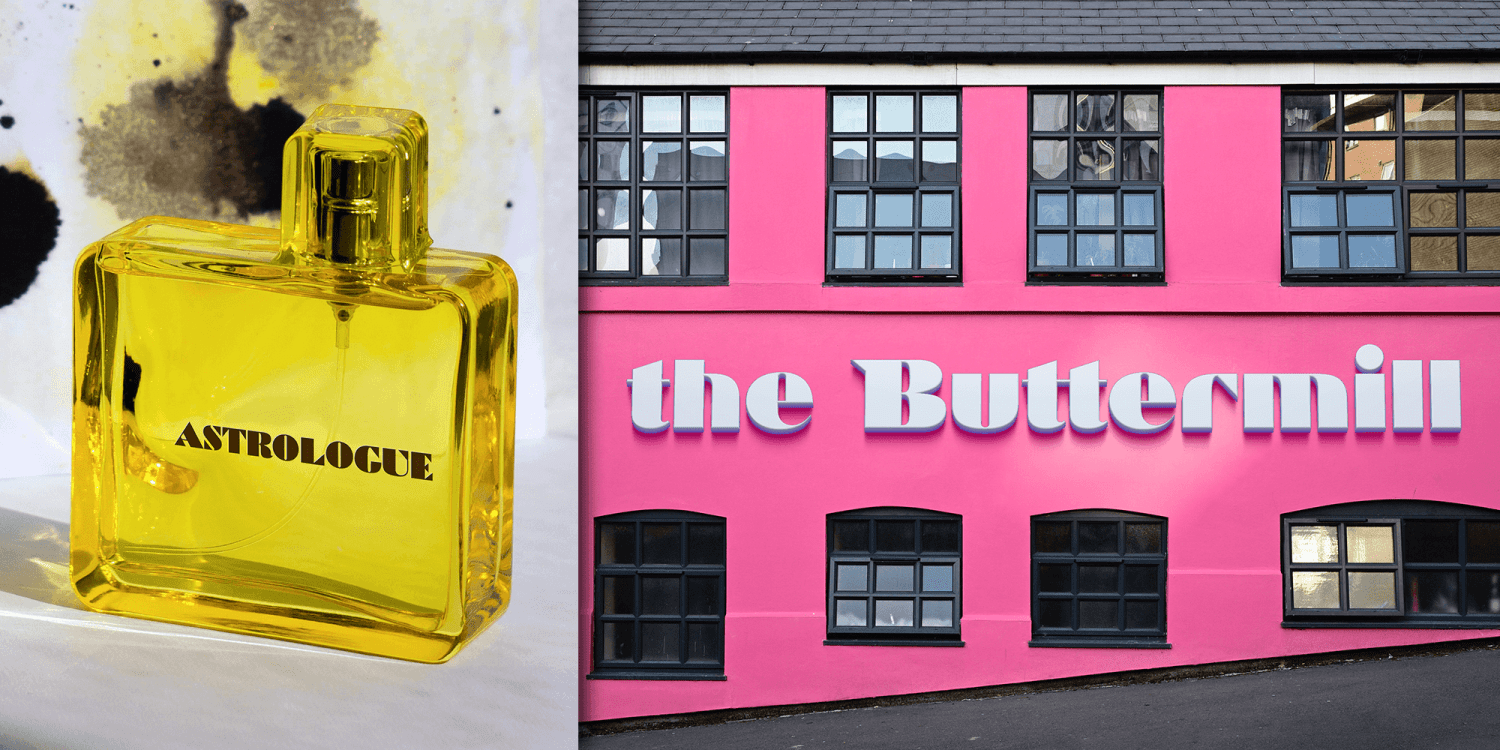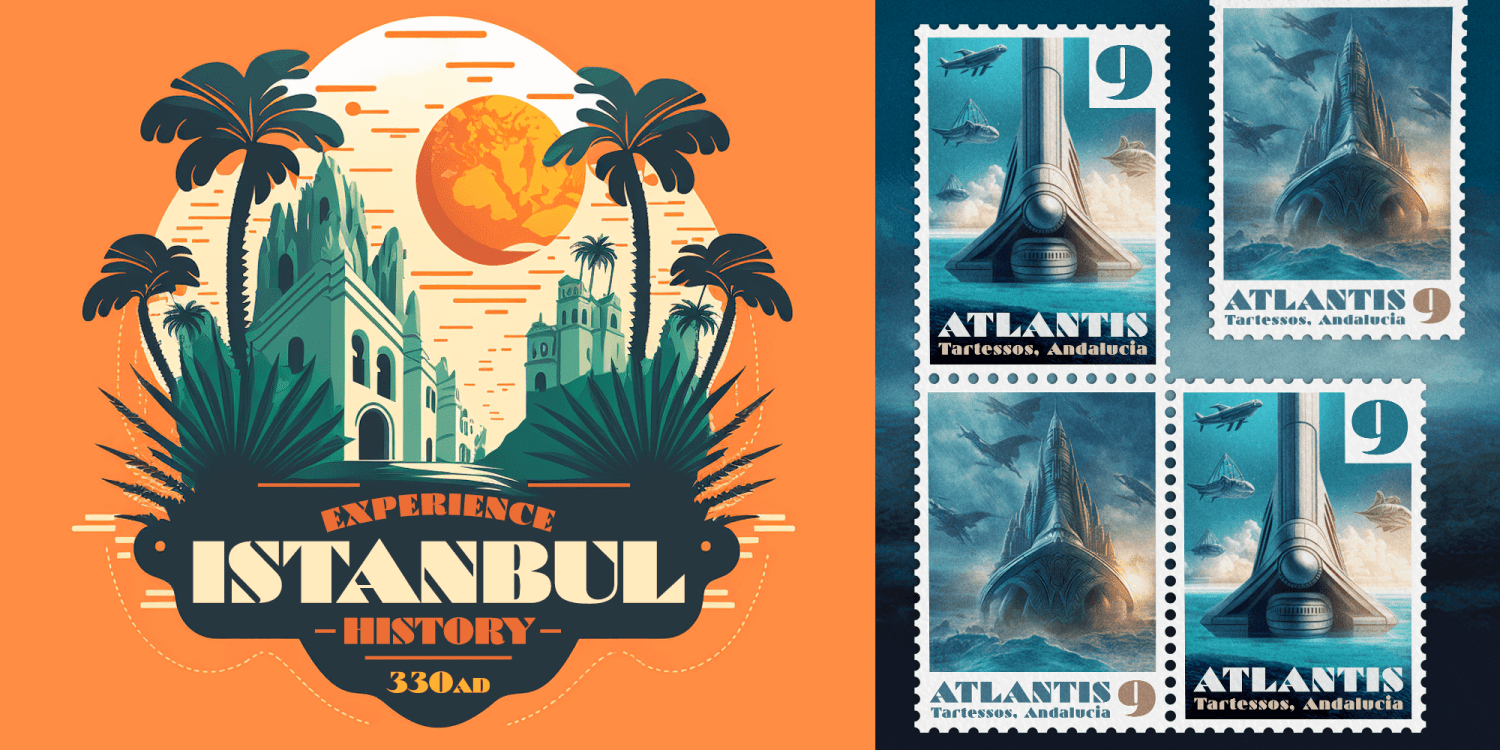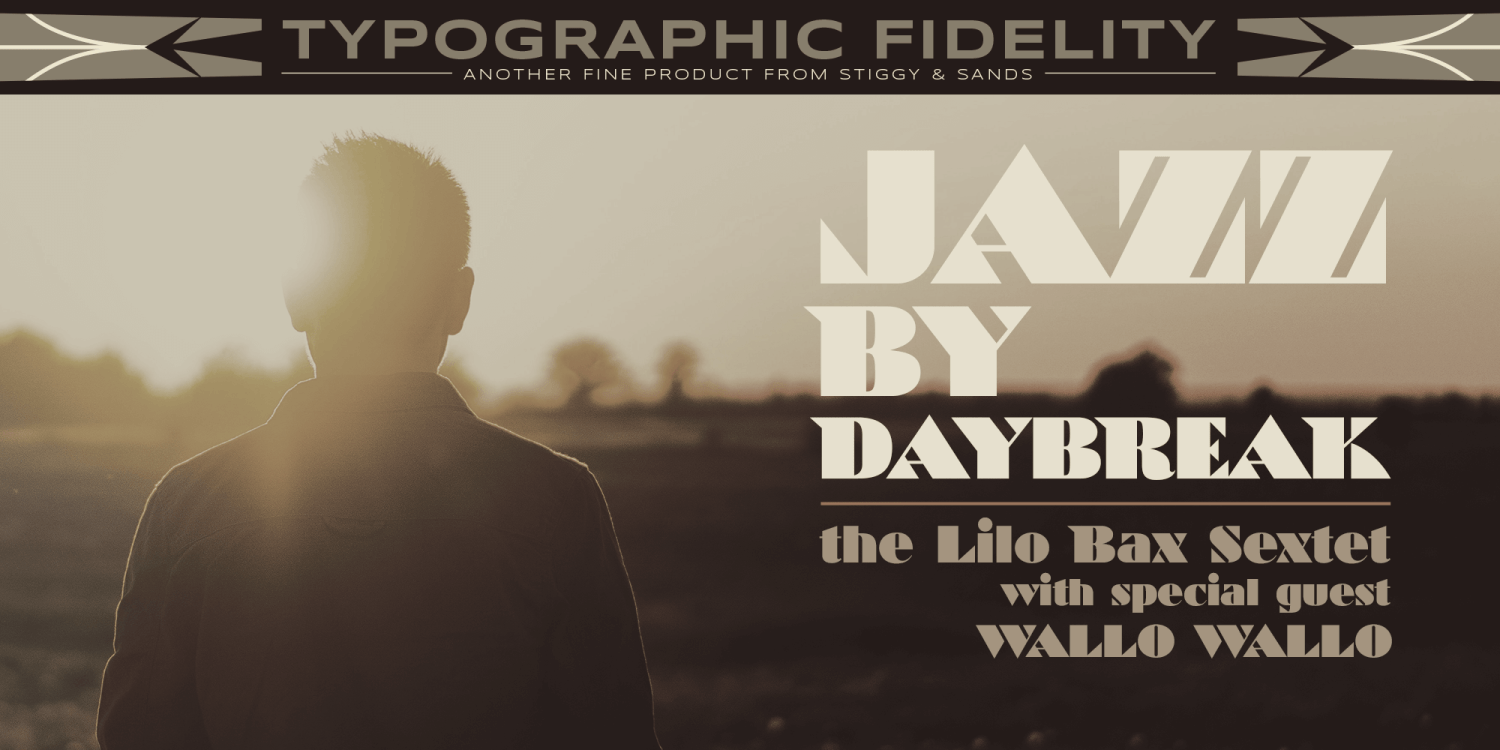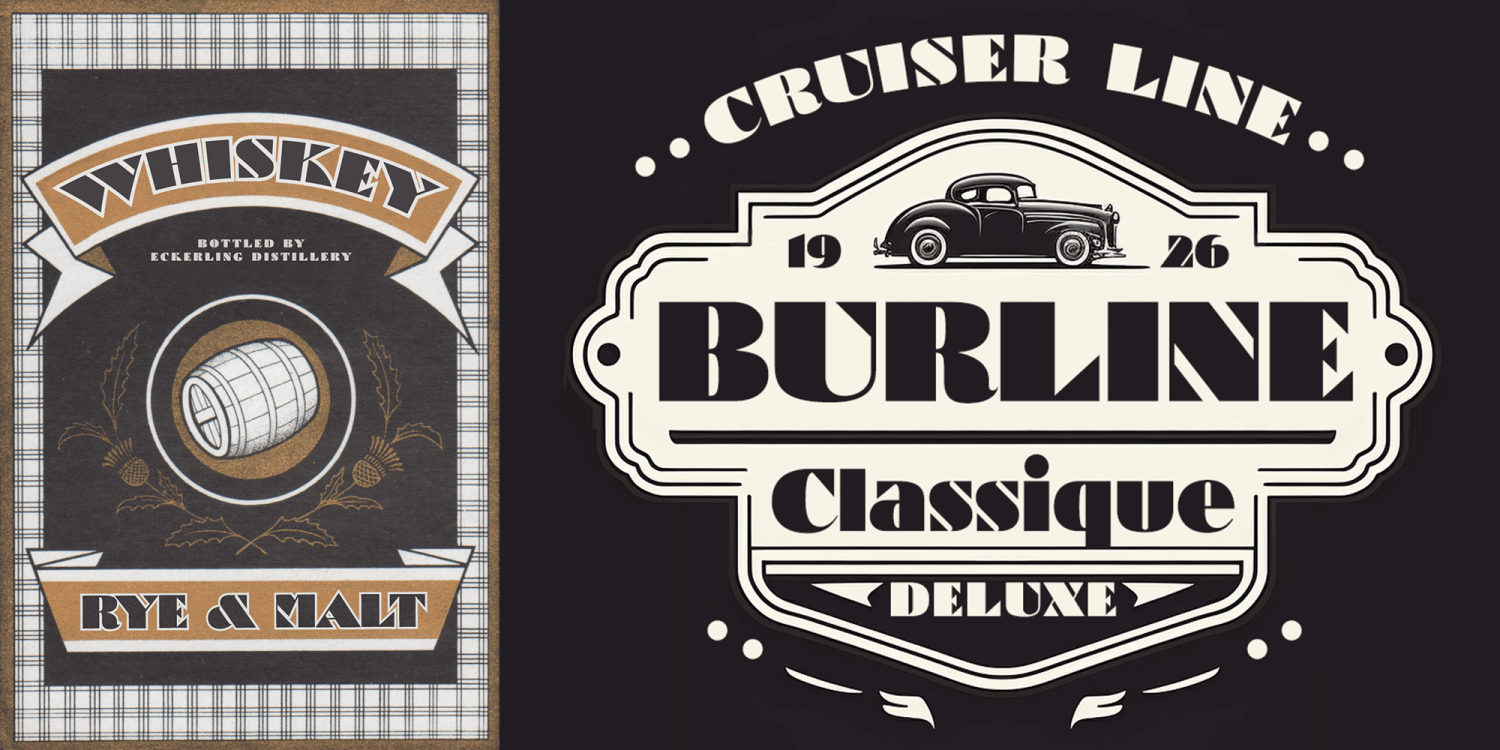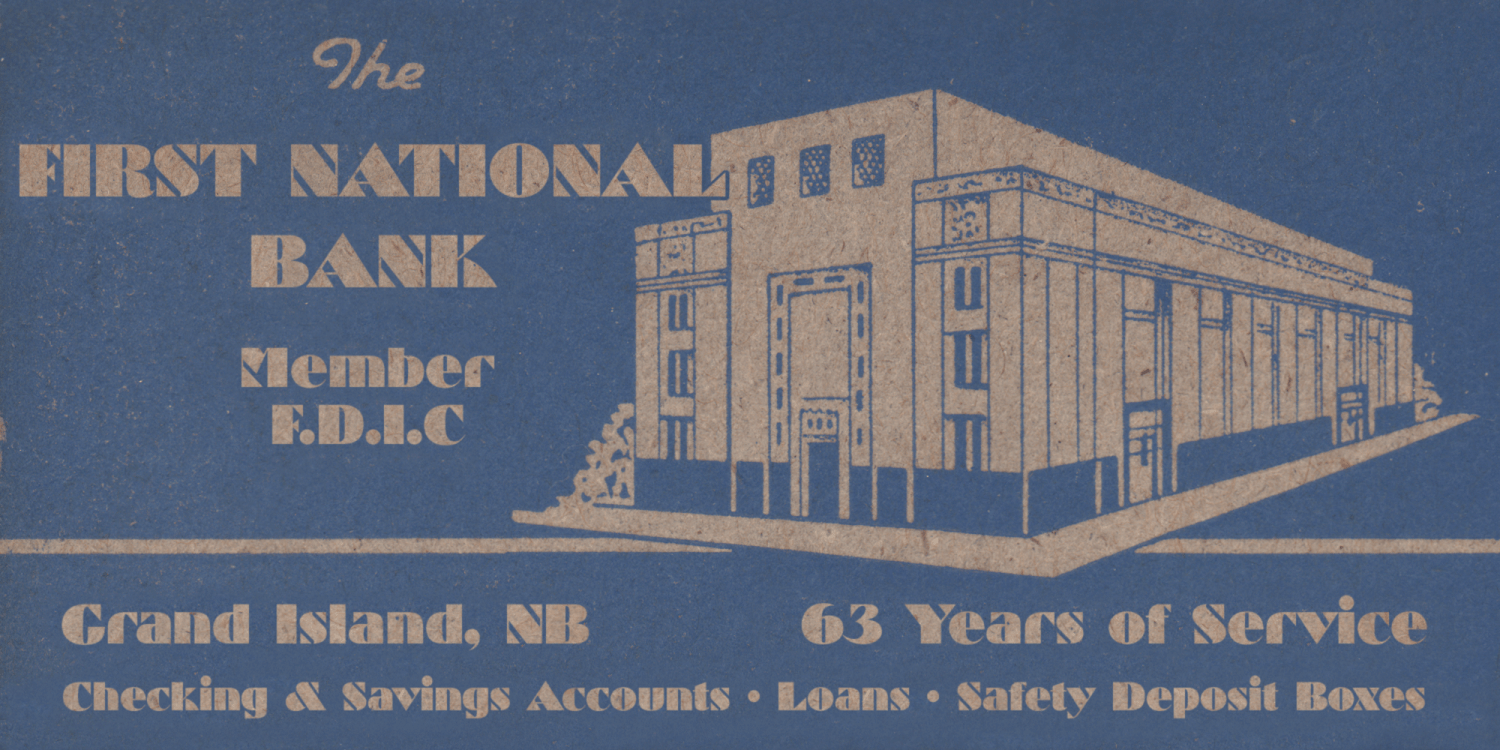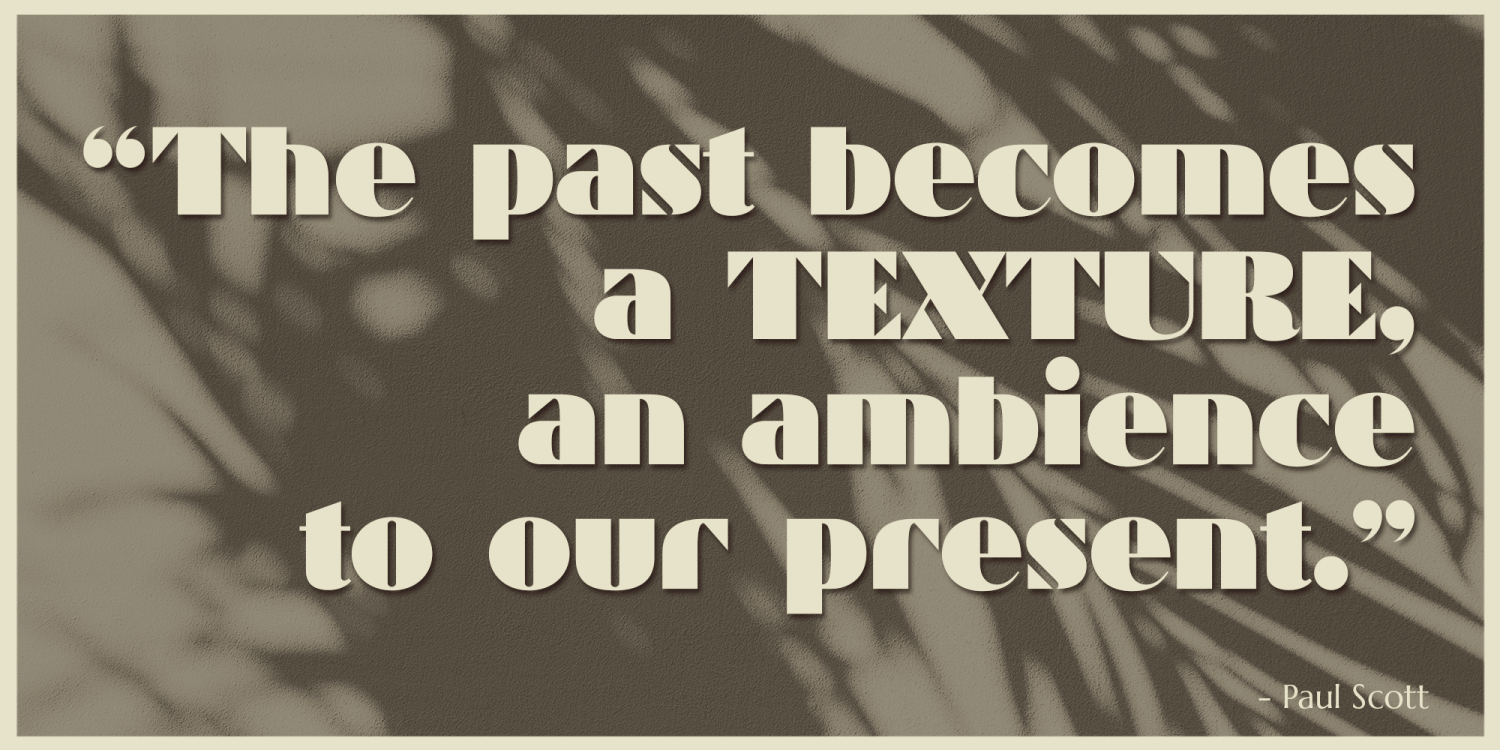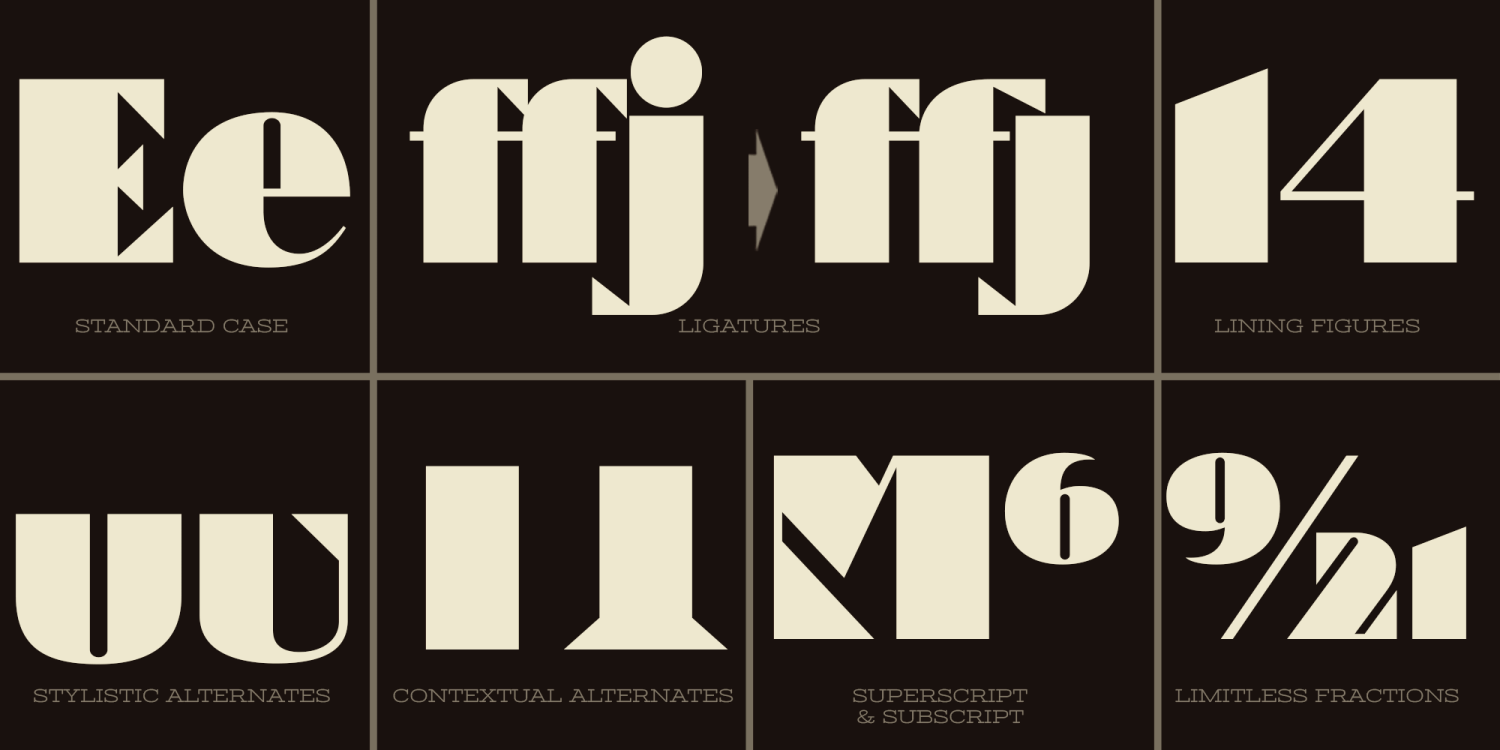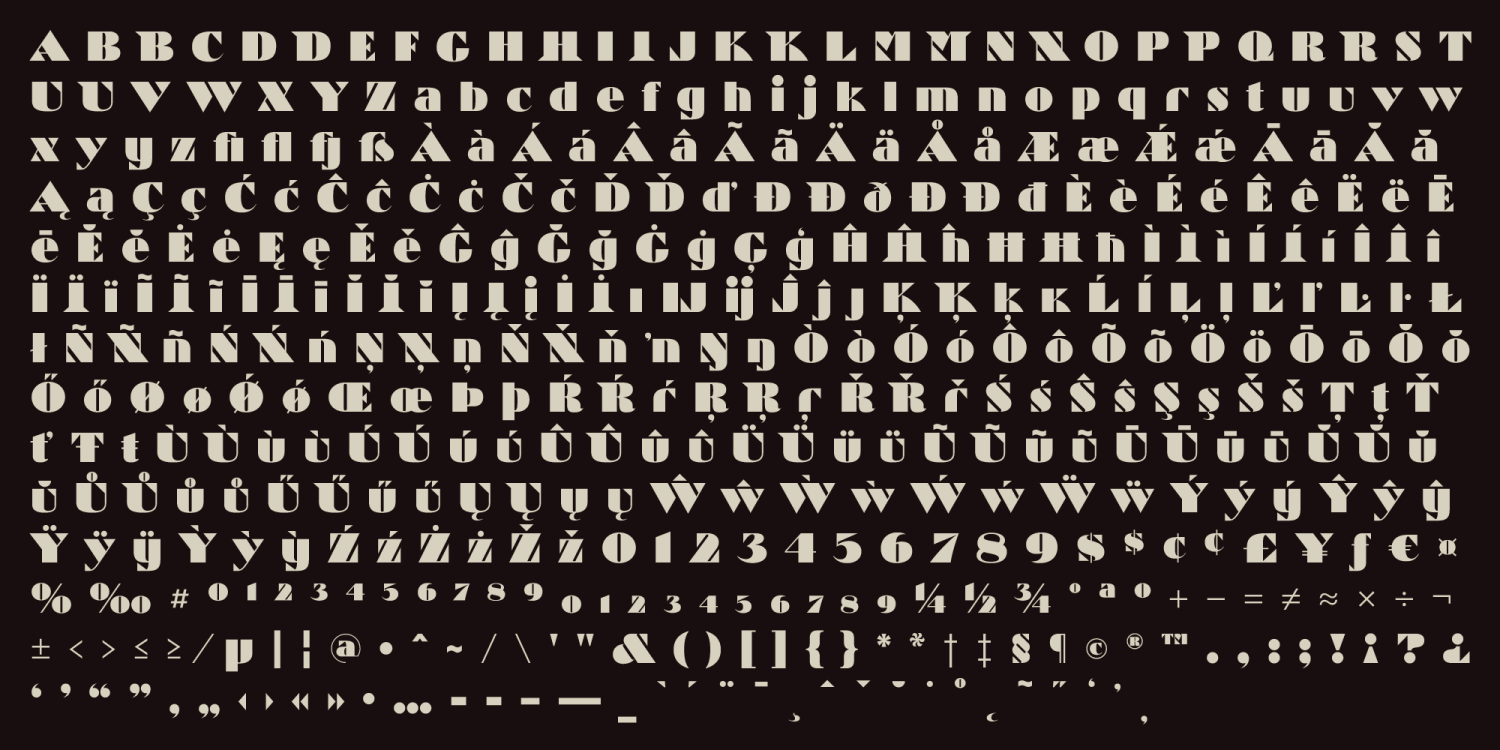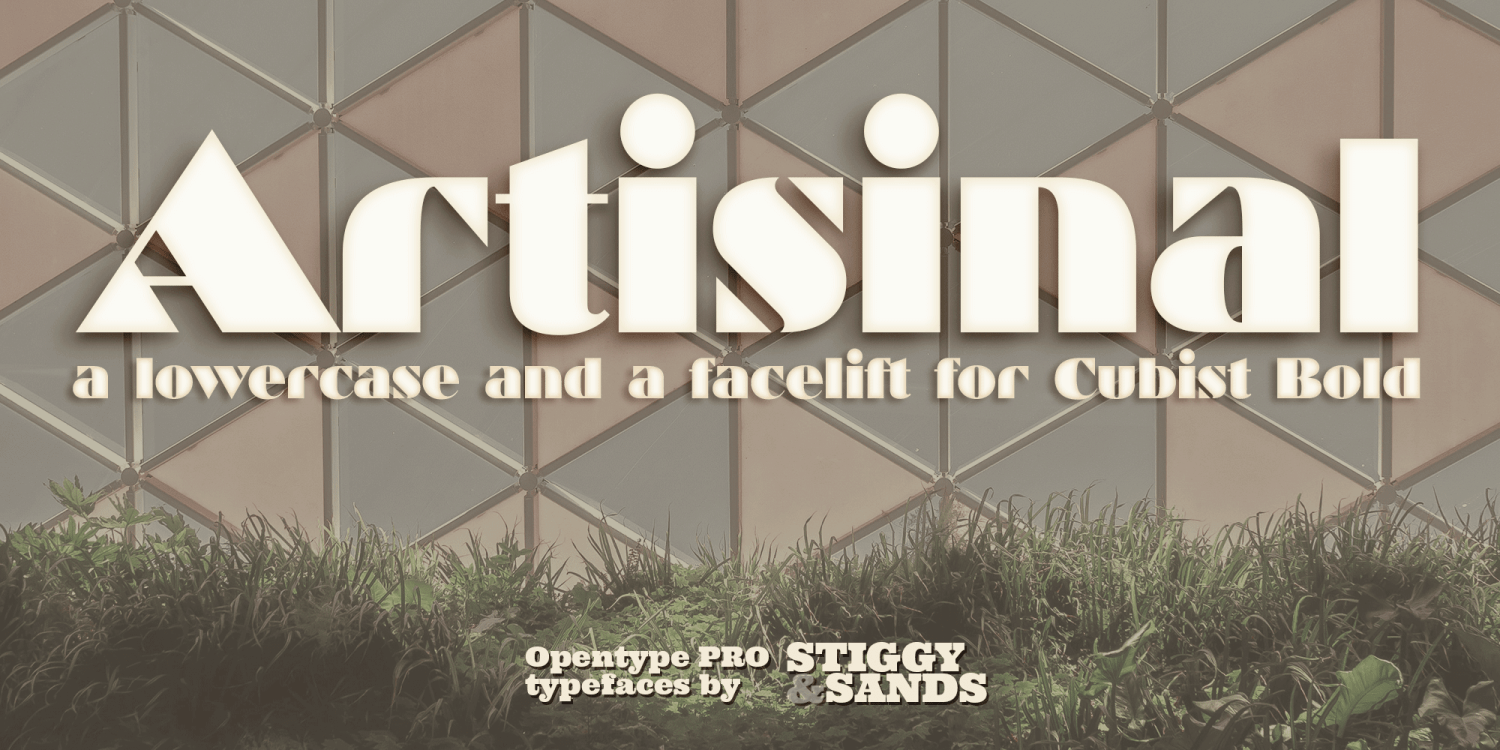
Artisinal
About Artisinal
Artisinal, not to be confused with the term artisanal, is our revival of the Art Deco typeface known as Cubist Bold, by John W. Zimmerman for Barnhardt Bros. & Spindler in 1929, breathes new life into a classic. The original metal cast typeface was designed…